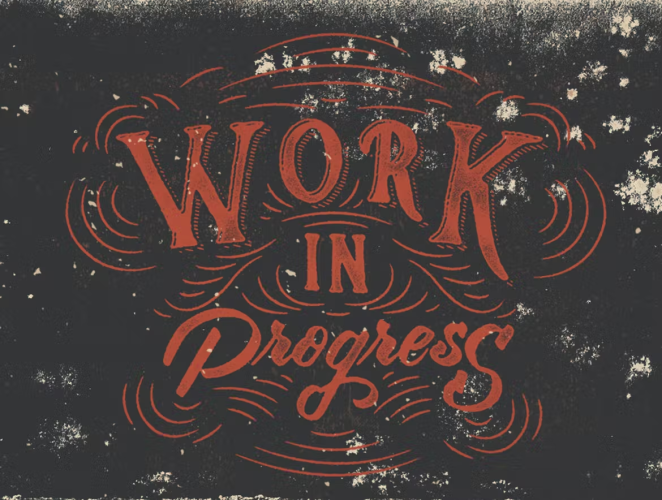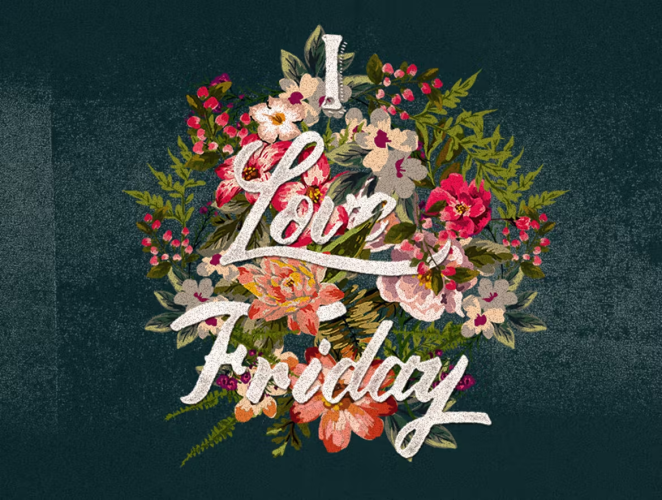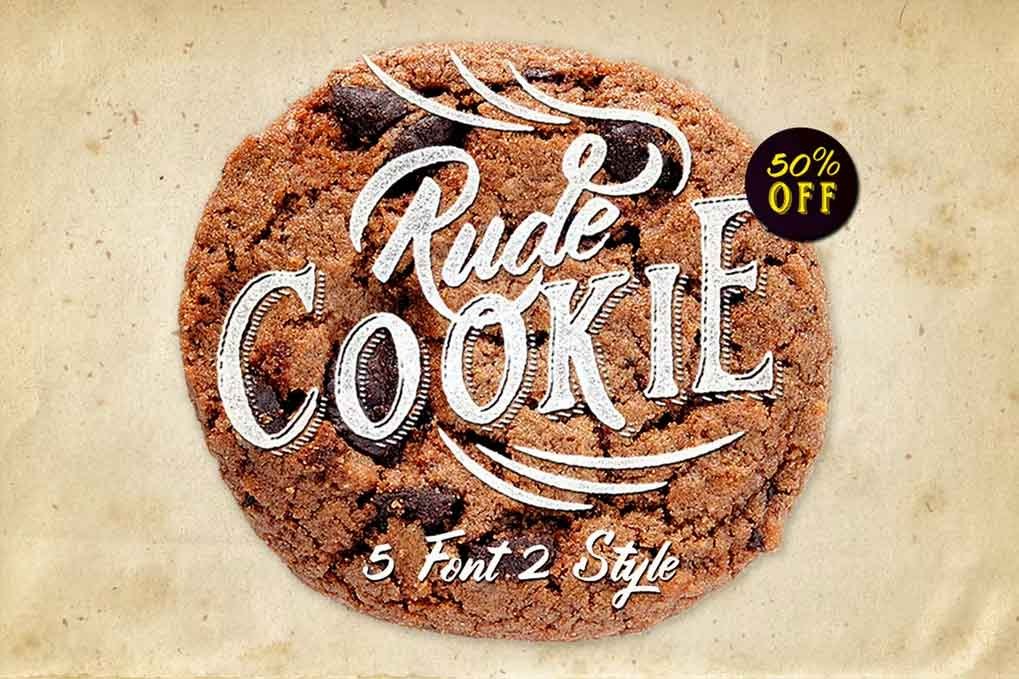
Rude Cookie Font
rude cooke is handrawn font with unique character and have a lot of beautiful alternative character, in this pack is 2 serif fonts and 2 scripts font. This couple fonts designed to be works together so it can make your projects more easily
Where Rude Cookie Font works best
A short phrase in Rude Cookie Font carries warmth that a typeset sans cannot fake; keep the rest of the card plain.
Chalkboard-style headings in Rude Cookie Font make a menu feel hand-made. Keep the dish descriptions in a simple face so prices stay readable.
One line of Rude Cookie Font over a photo is enough; the script carries the tone and the caption does the work.
What kind of work does Rude Cookie Font suit?
It sits in the Script And Handwritten group and reads as handwritten, script, script and handwritten, serif. That makes it a candidate wherever those qualities help: headings, packaging, social graphics and brand work. Set it at the size you plan to use before deciding.